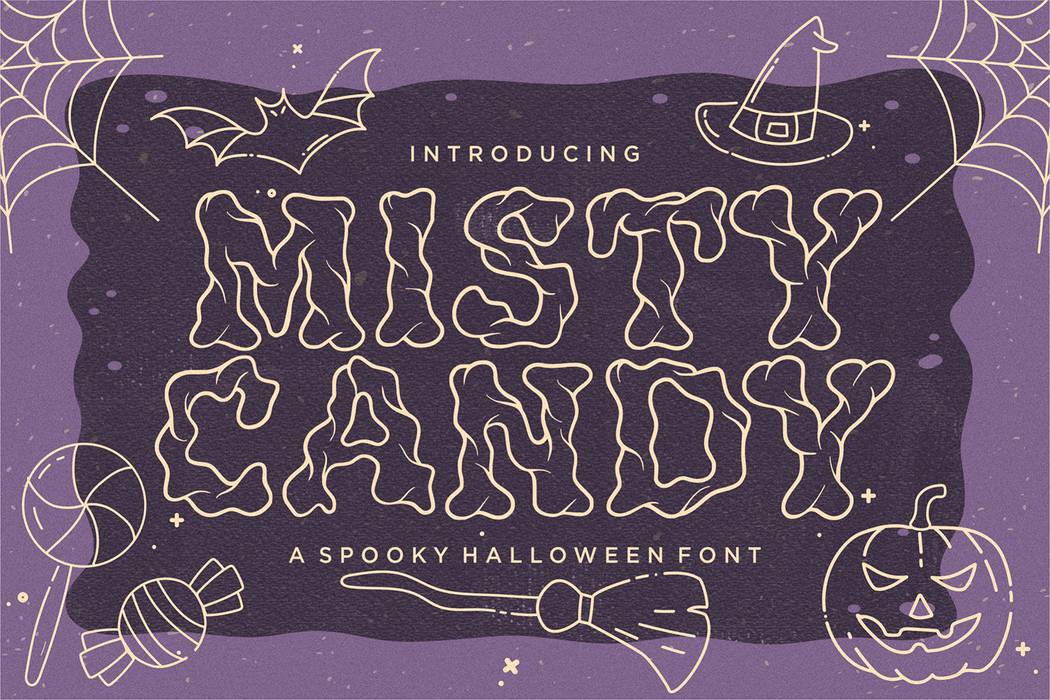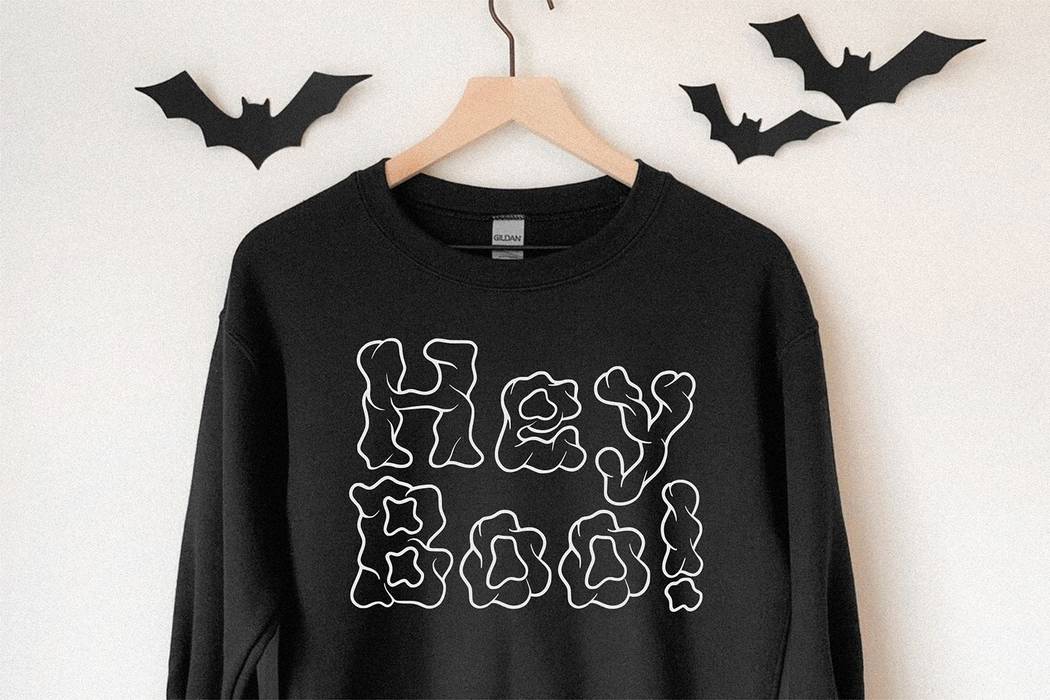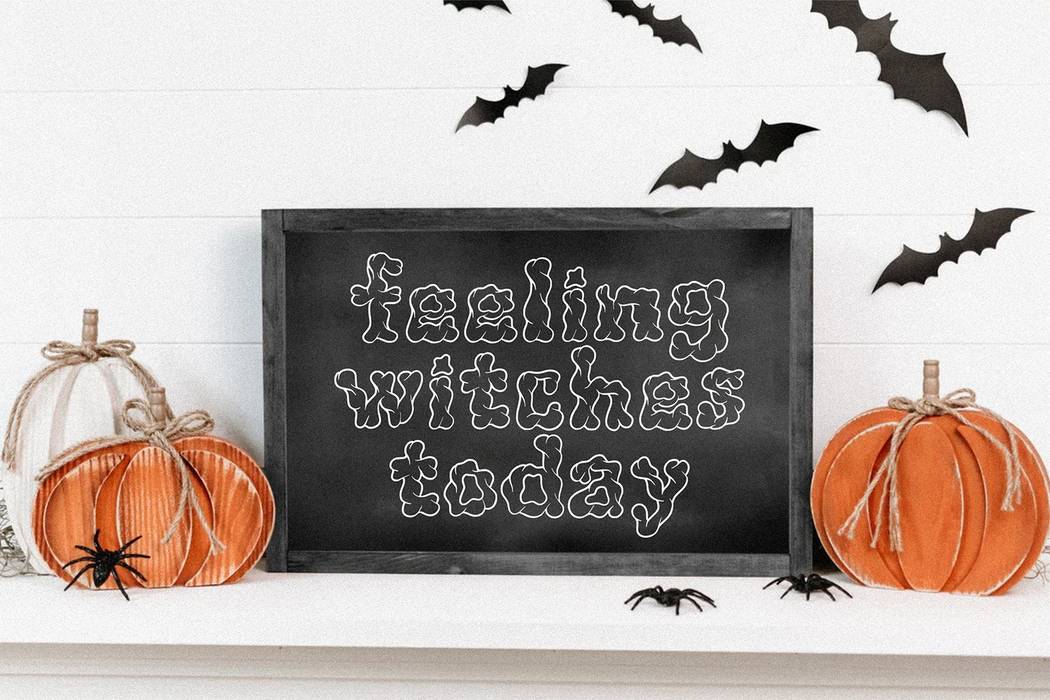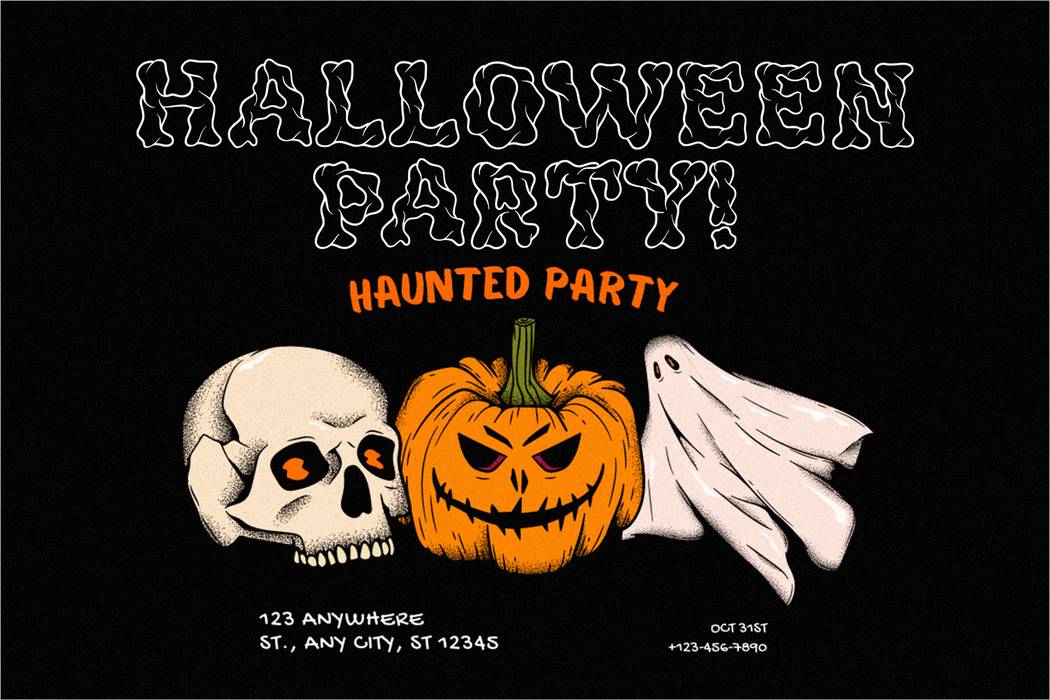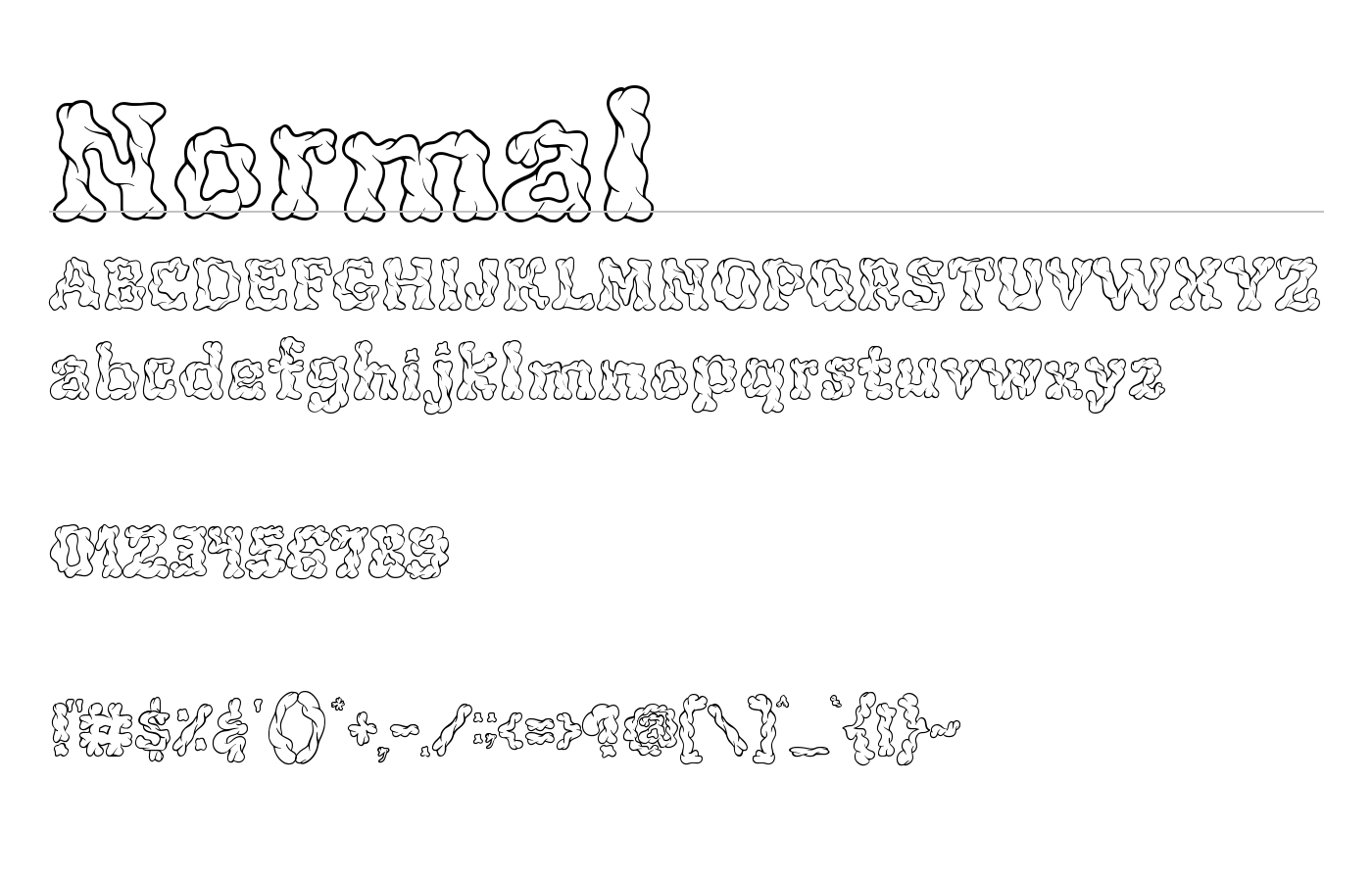
Misty Candy is a playful, decorative font featuring bubbly, irregular letterforms that resemble soft, puffy candy shapes. It has a bold and whimsical character with consistent line weight and rounded edges, making it perfect for fun, youthful designs like party invitations, children’s products, or quirky branding. Its unique style works best in large display settings where its charming personality can truly stand out.
Misty Candy Font